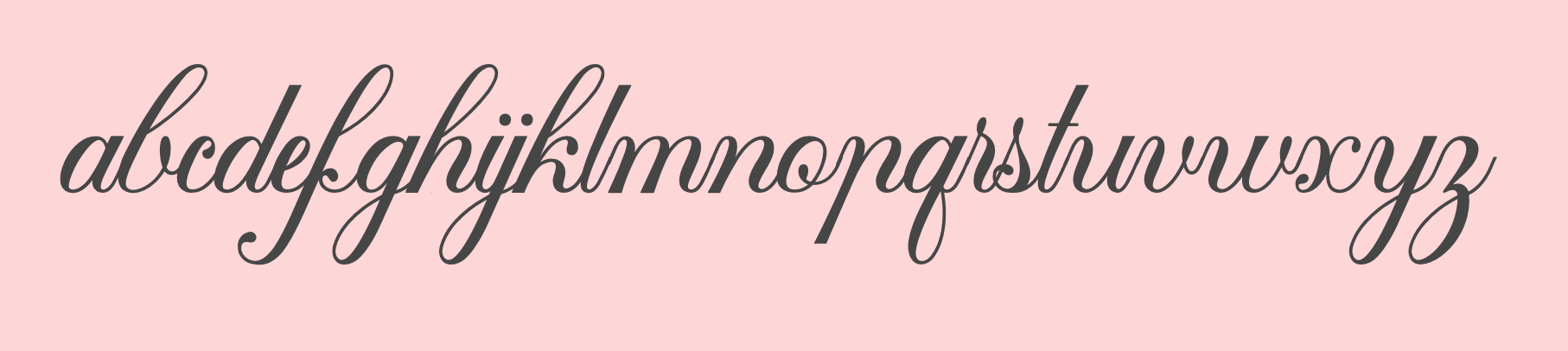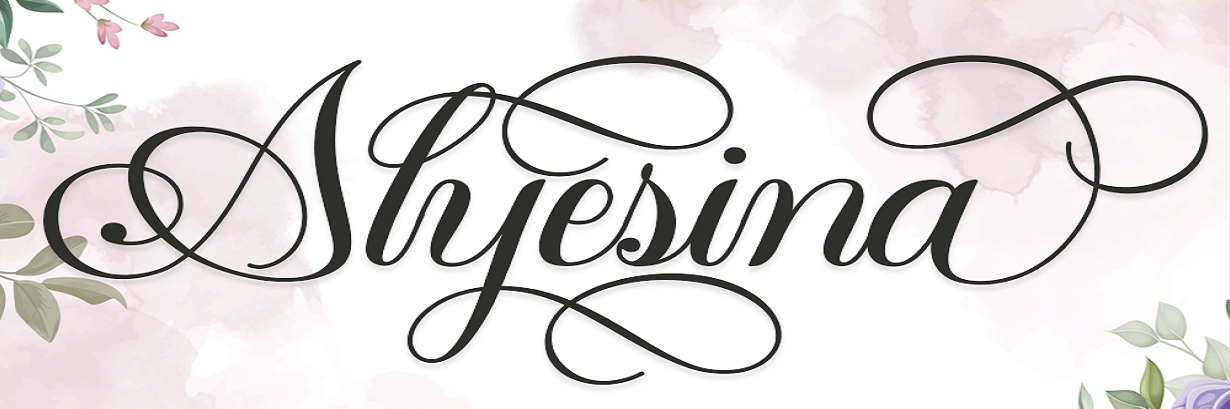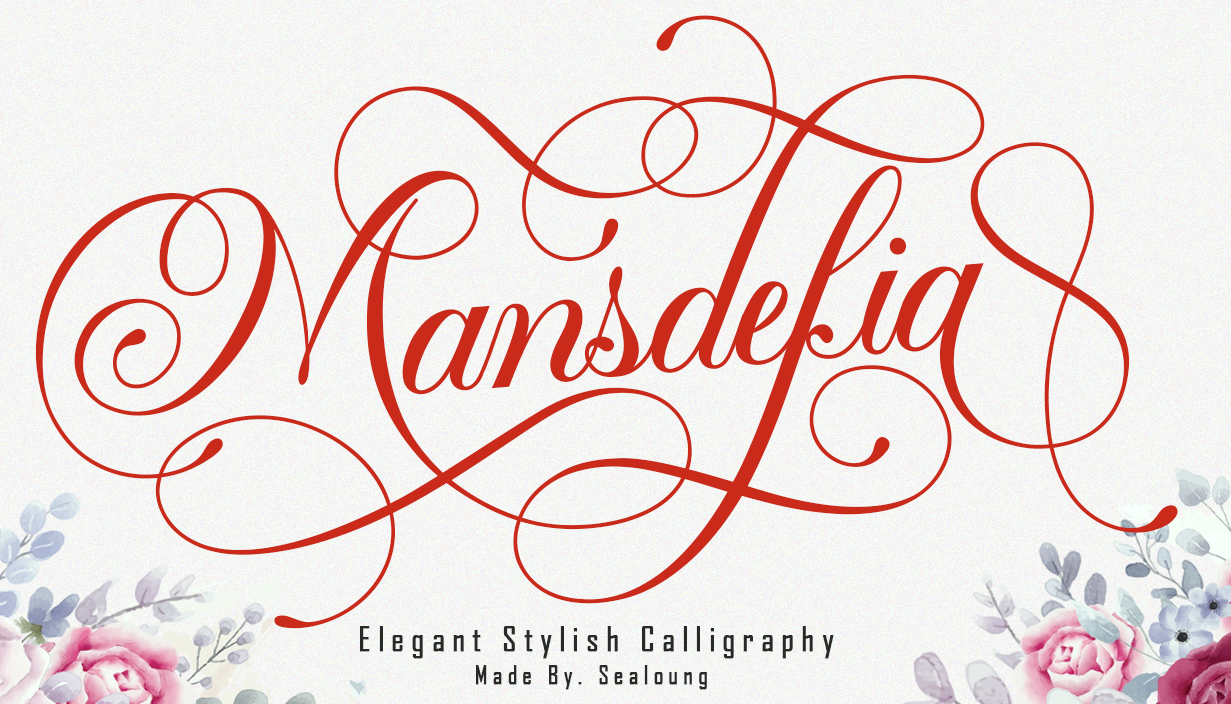
Sealoung (was: Masay Letter) [Saiful Anwar]
Mojokerto, Indonesia-based designer (b. 1986) of these typefaces in 2020: Abimoty, Agoxes Game (octagonal), Amellya (wild calligraphic), Arahma, Asgore (a horror font), Assiaam, Aulidah, Battom Glory (a curly blackletter), Blapuhy (a dry brush script), Blondie, Bodihel, Brithny (a plumpish upright script), Busero (a speed emulating sports font), Christmas (a signage script), Deuglas (a wide monolinear sans), Domino, Duralit, Endellia (dry brush), Fastrace (a race car font), Gladish, Gondes, Hello Father (a heavy upright script), Kafenot, Kehraut, Killega (a decorative serif), Kris Kringle (Christmas-themed caps), Little Aliens, Love Money (an upright script), Merry Santa, Miss Mince, Moody, Queen, Rayhed, Sadish (a spurred decorative blackletter all caps typeface), Challiren (a Valentine's day script), Sakurata (oriental simulation), Santomyse Eridupes (a heavy rabbit ear script), Stiffeny Maritta (a rhythmic script), Tehisa, The Backro, Time Christmas (a retro signage script), Wuudy Cow, Yogurt Luber (a dripping paint font).
Typefaces from 2021: Saevul (an elegant inline typeface), Maferic (a display serif and script), Liferdas (an 18-style transitional serif), Adeston (a fashion mag serif), Edhan Martine (luxury serif), Abygaer (a refined display serif), Asbigan (a ligature serif), Maguire (a display sans), Angela (a swashy display serif), Nergisha (a trendy fashionable serif typeface), Weatsyam (a stylish signature script), Mansdefia (a formal calligraphic script), Romantic (a script with personality), Bandes (an upright supermarket script), Love Rysma (a scrapbook font), Adaniya (a calligraphic signage script), Alyesina (calligraphic), Hay Monster (a scrapbook font), Balloon Duwoor (a scrapbook font), Crazy Robot (a blocky all caps typeface), Belyna (an upright script), Lovelys (a textured script), Sanderyna (a signature script), Magemin (a decorative serif), Hello Bucin, Founder Christmas, Amania (a bold signature script).
Typefaces from 2022: Sugela (a display serif), Ramadhan Amazing (Aarabic emulation), Algoria (a 36-style sans), Sageyl (a spider web serif).
Sealoung (was: Masay Letter)